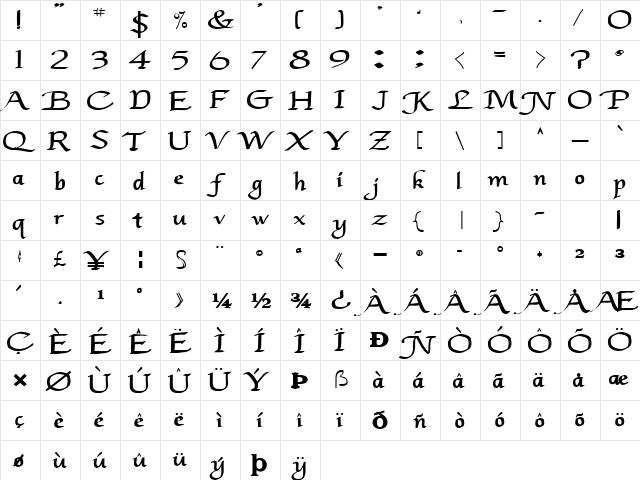
LightWave114 Bold Font Preview
LightWave114 Bold
LightWave114 Bold Font Details
Design Context for LightWave114 Typeface
LightWave114 is a composed and adaptable typeface that performs quietly and consistently across a wide range of design contexts. Its bold stroke weight gives it real presence on the page.